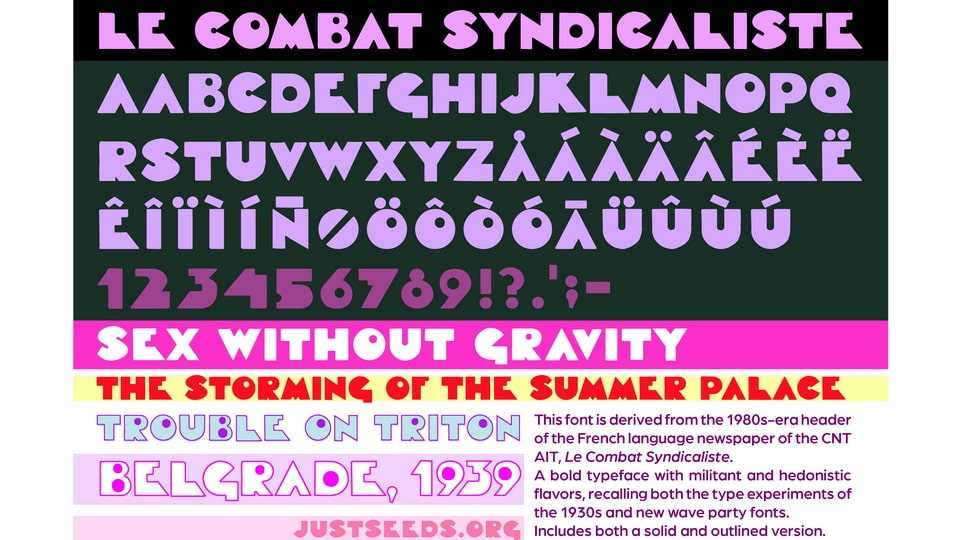
Download Syndicalista font, a display typeface derived from 1980s-era header of the French newspaper. It’s a bold typeface with militant and hedonistic flavors, recalling both the type experiments of the 1930s and new wave party fonts.